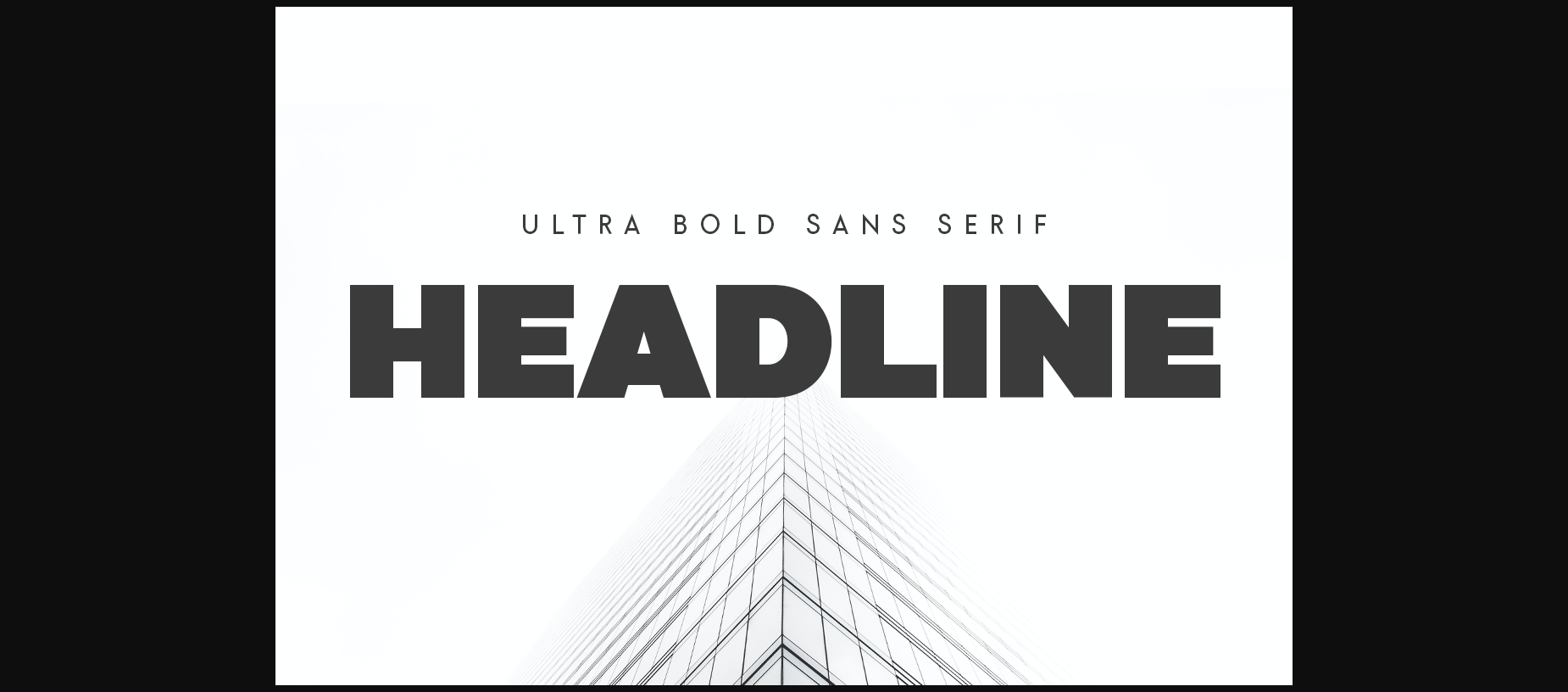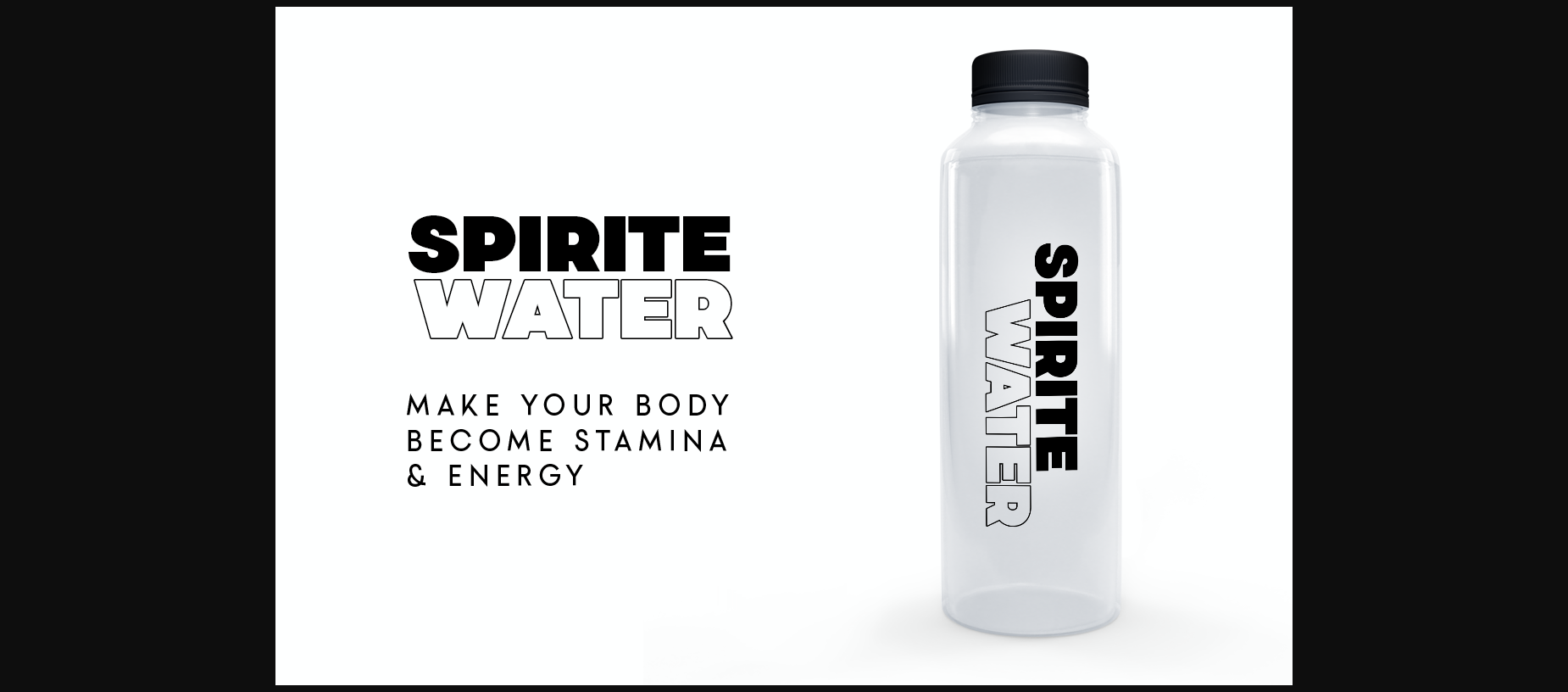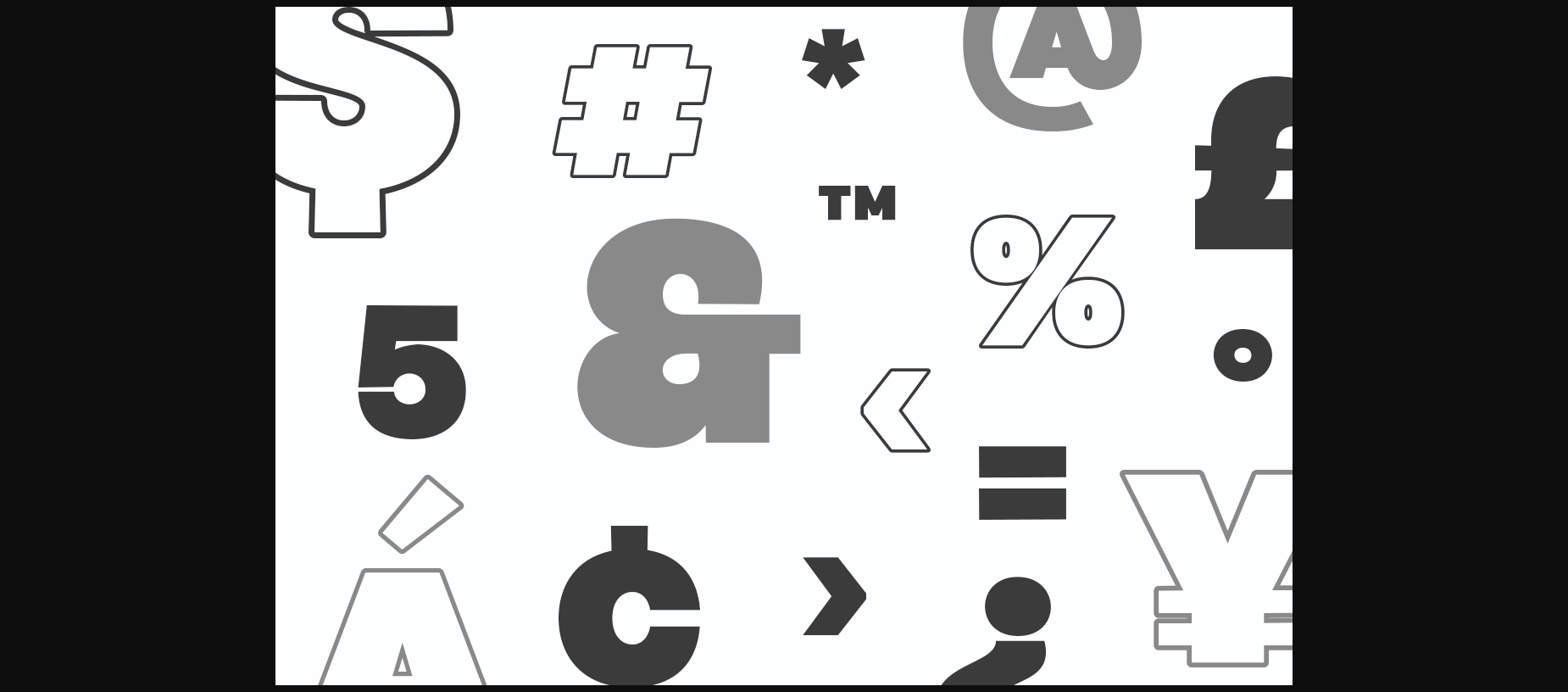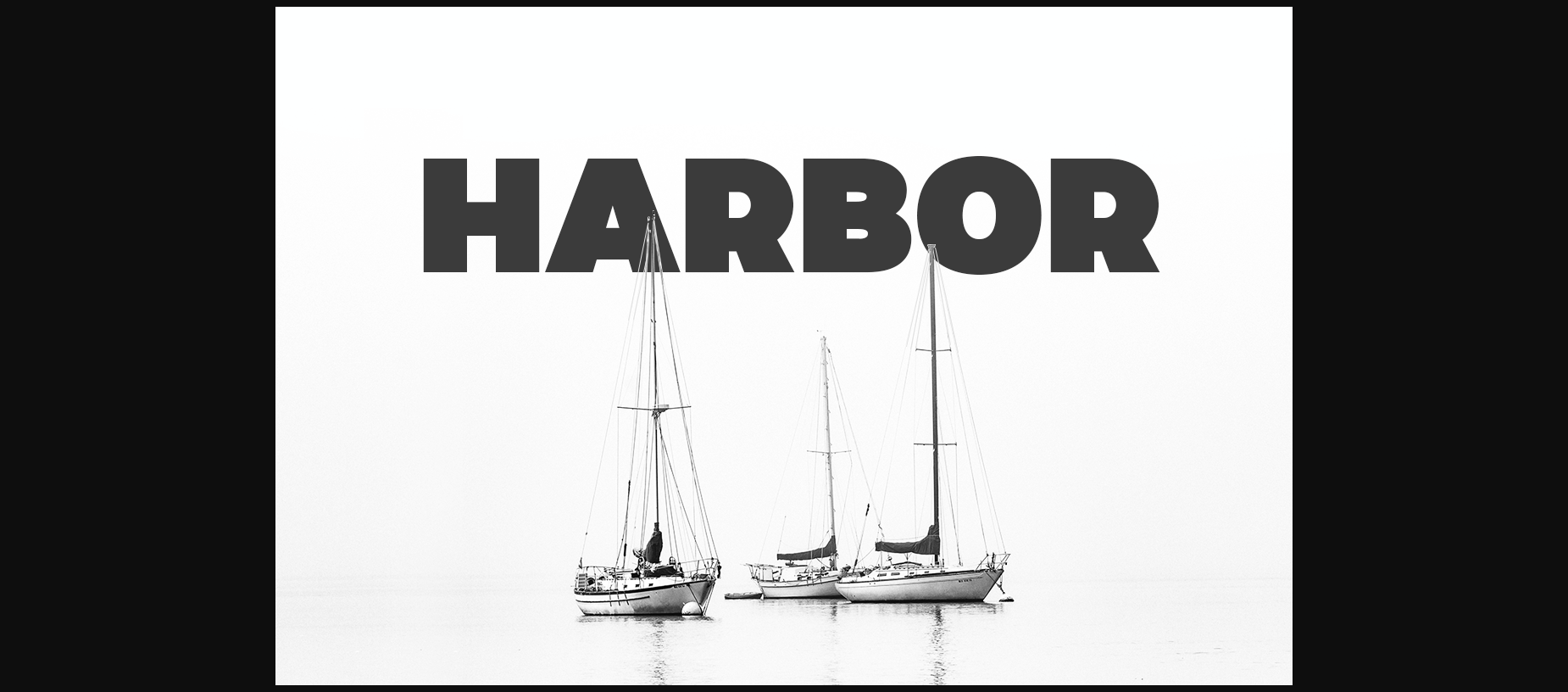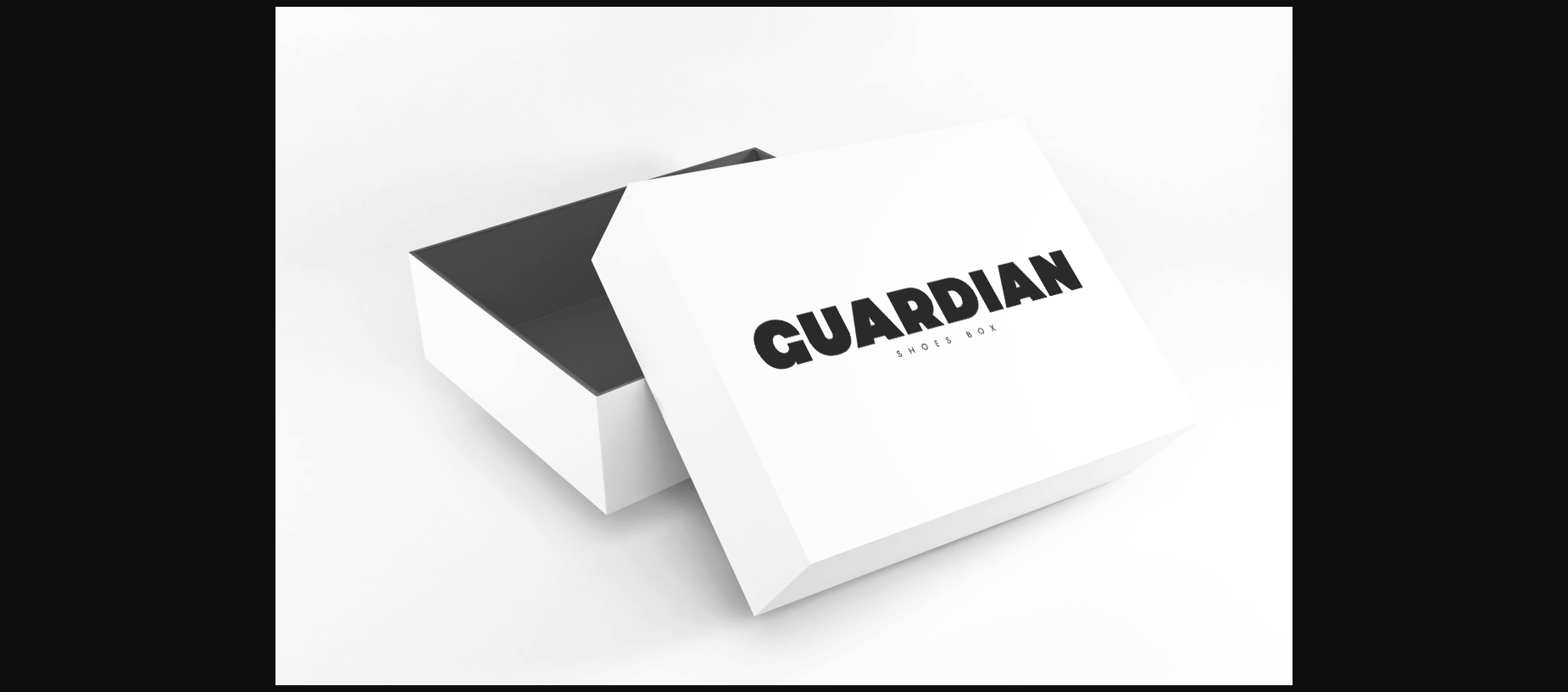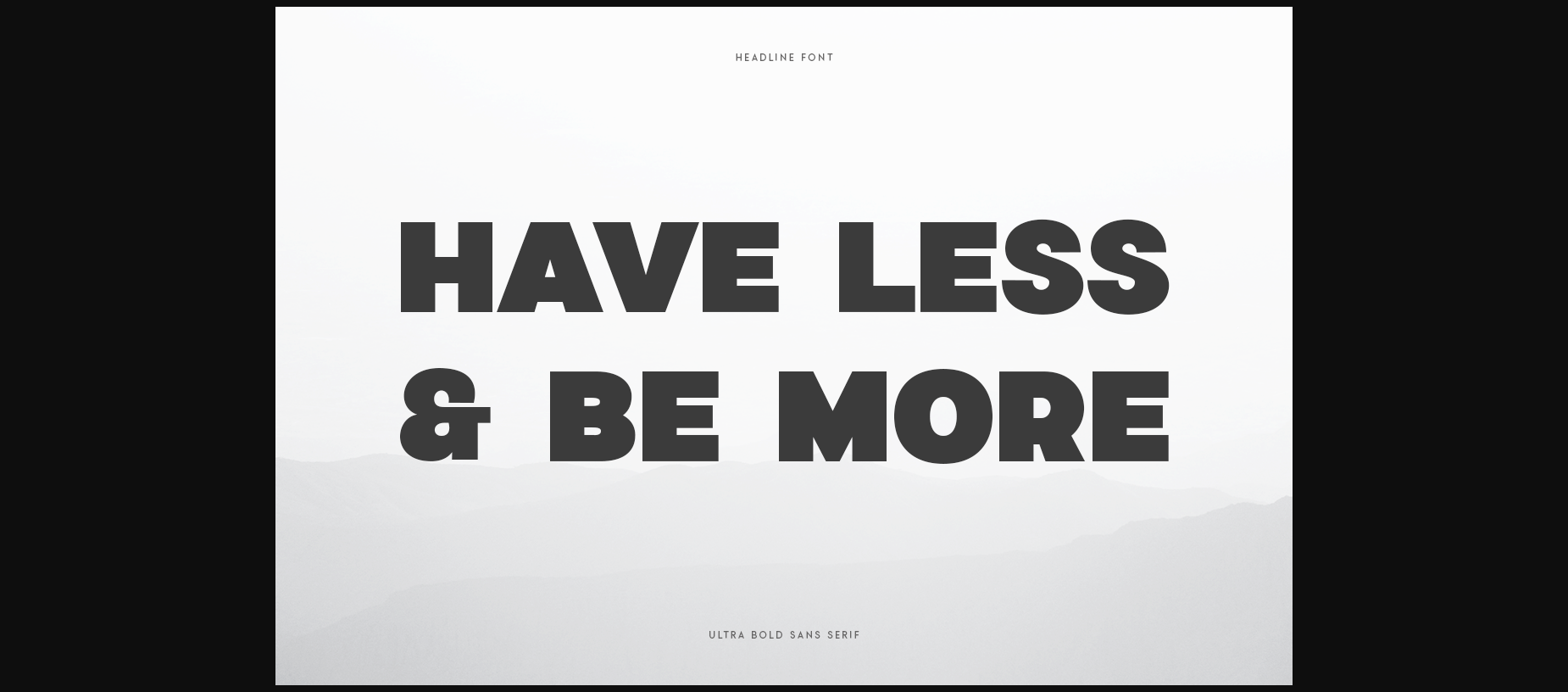
About Headline Font
Headline is a bold and assertive sans serif font. No matter the topic, this font will be an incredible asset to your fonts’ library, as it has the potential to elevate any creation.